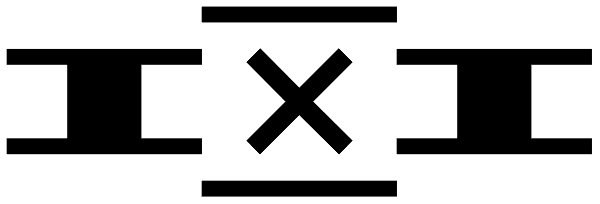
TXT101
TXT101 is a fresh, friendly typeface for mock text and borders. As a retro-cool digital successor to the pencil marks that were hand-drawn as placeholder text in the analog era, TXT101 includes 52 styles, from Arch to Zigzag, with a couple of loops...